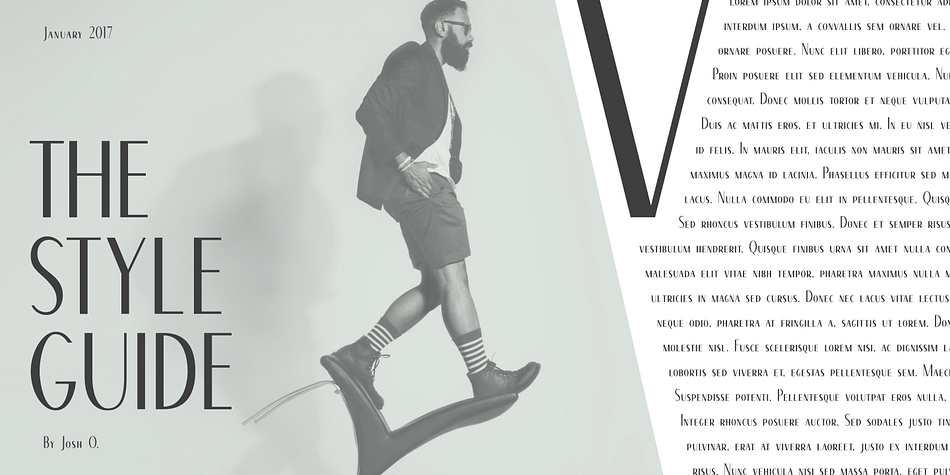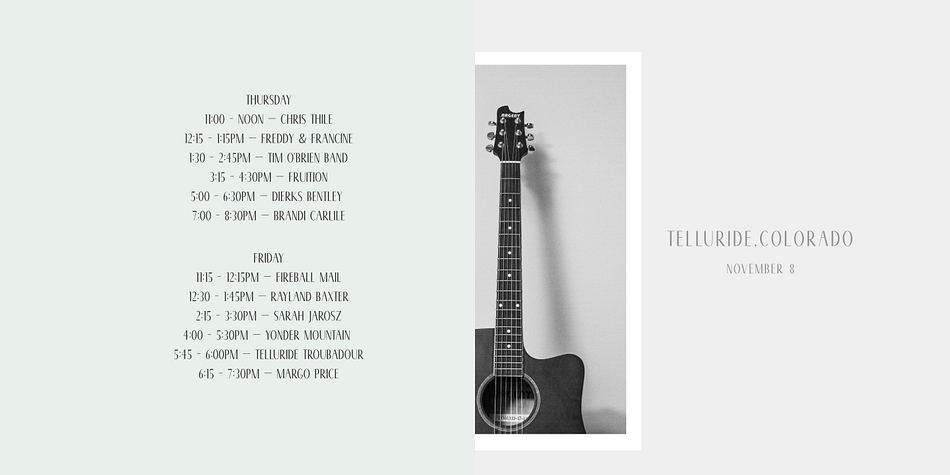
Von Bond
Designed by Josh Ownby, Von Bond is a display sans and art deco font published by Josh Ownby.
Von Bond is a classy sans serif typeface that’s retro with a modern twist. Based on vintage serif letterforms, Von Bond captures the essence of an elegant serif with the simplicity of a sans serif.
Alternating thick and thin strokes create an elegant look for your designs that can be used in graphics ranging from fashion editorials to custom invitations and social media graphics. Create gorgeous headlines with an all caps design, or mix with the lowercase small caps for a more vintage aesthetic.
Von Bond also includes case-sensitive punctation for use with uppercase characters.